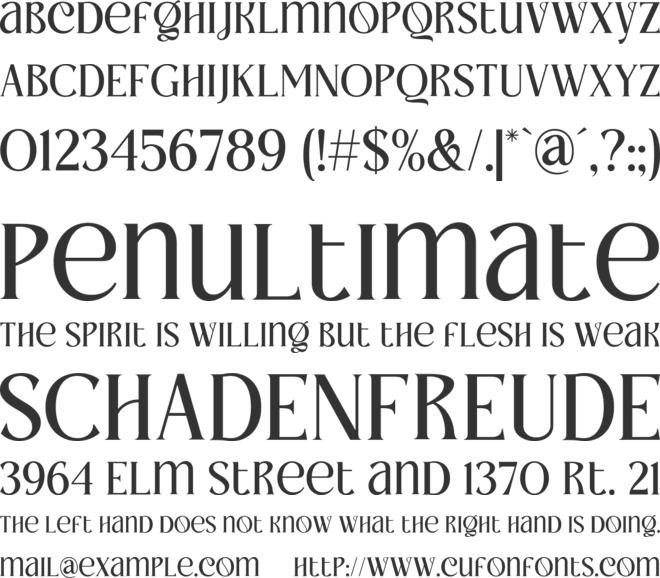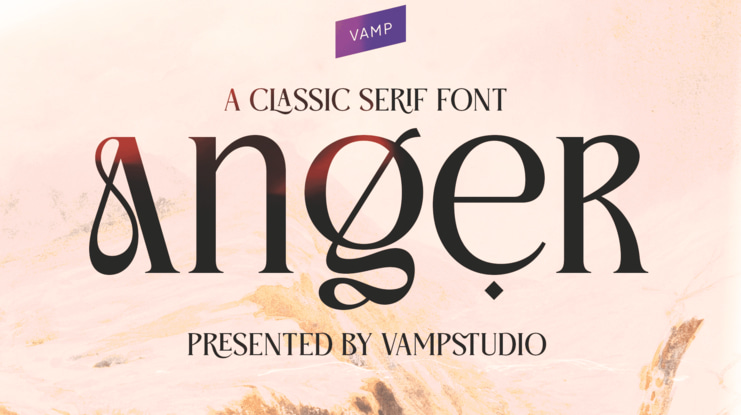
Anger Font
Introducing Anger, a classic serif typeface exuding elegance and style. With its simplicity, cleanliness, and refined design, this font is the ideal choice for any projects and brand. Meticulously crafted by skilled hands, Anger adds a touch of sophistication to your typography.